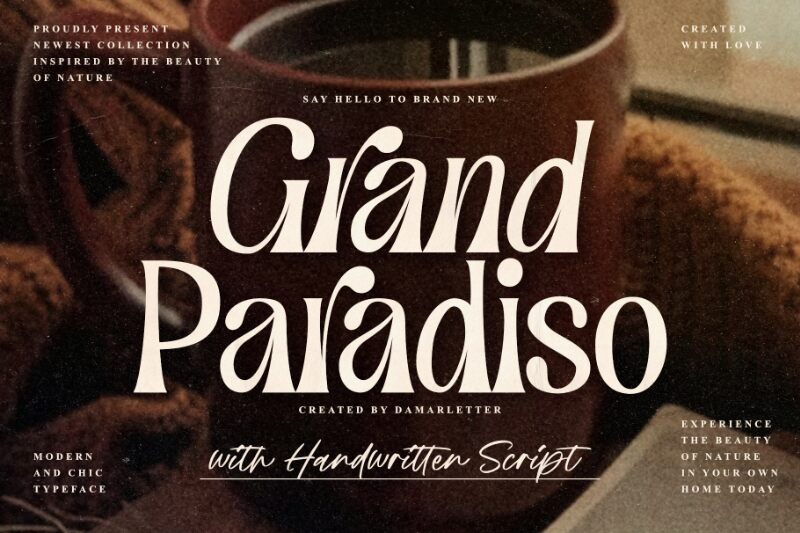
Enchanting and effortlessly elegant, Grand Paradiso Script by Damarletter captivates with its graceful, handwritten charm. This captivating font exudes a sense of timeless sophistication, its flowing strokes and delicate ligatures evoking the romance of a bygone era. Whether adorning invitations, branding materials, or editorial layouts, Grand Paradiso Script's unique personality shines through, infusing any project with a touch of refined sophistication.
Versatile and adaptable, Grand Paradiso Script lends itself beautifully to a wide range of design applications. Its calligraphic flair makes it a natural choice for wedding suites, event branding, and luxury packaging, while its refined aesthetic also suits editorial work, book covers, and high-end product labels. Equally at home in both digital and print mediums, this font's versatility ensures it can elevate the visual impact of any creative endeavor.
Grand Paradiso Script